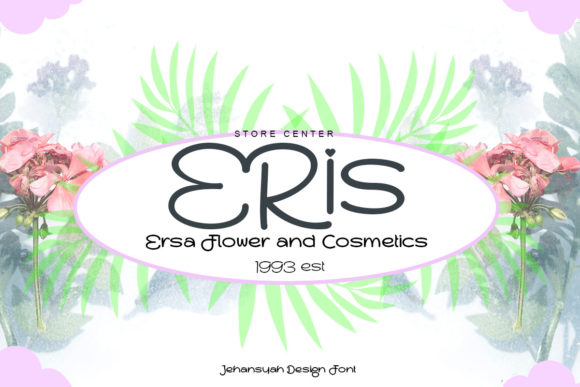
Radish and Garlick Font
Radish and Garlick Font is a cool and adaptable display font. This font is suitable for designs such as t-shirts, sportswear, posters, logos, advertisements, clothing, and more.
Radish and Garlick Font is a cool and adaptable display font. This font is suitable for designs such as t-shirts, sportswear, posters, logos, advertisements, clothing, and more. Whatever the topic, this font will be a great asset to your font collection, as it has the potential to enhance any creation.